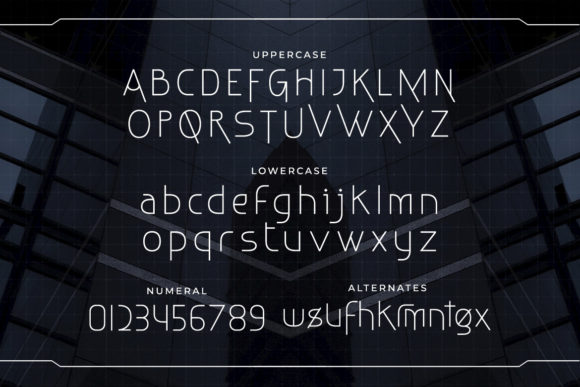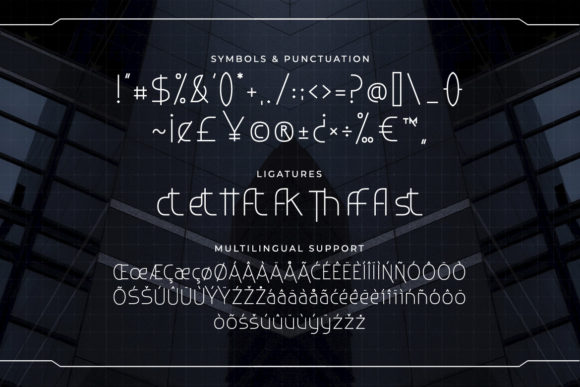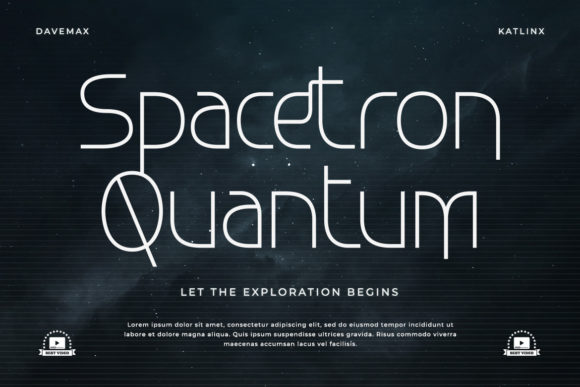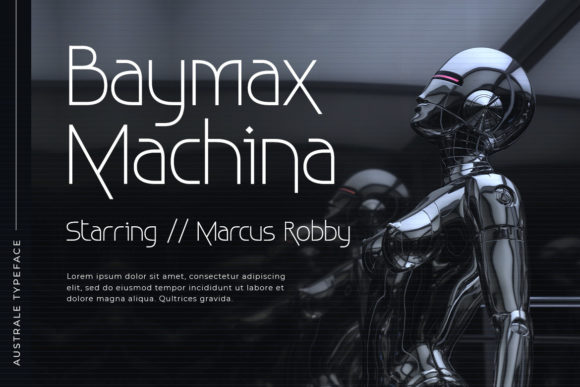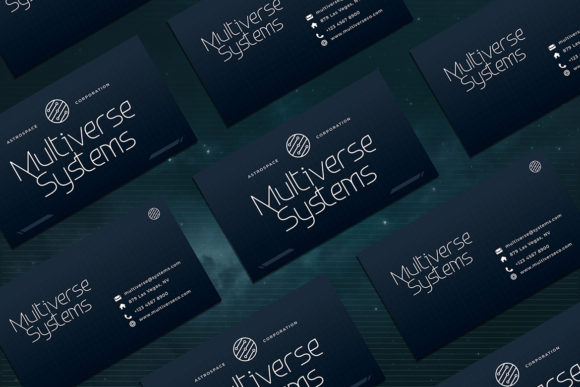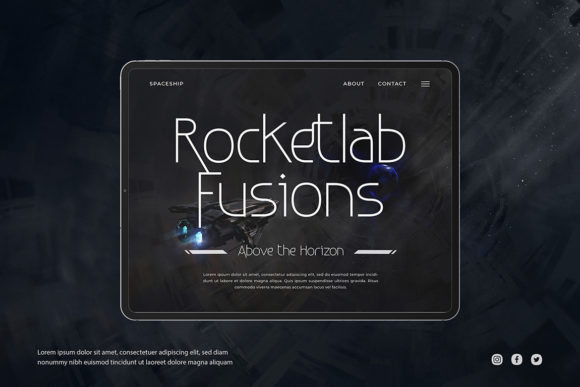
I still remember the frustration of working on a logo design project, hours spent searching for the ideal font. My client wanted something modern, sleek, and futuristic, but I was stuck in a sea of generic sans-serifs. That’s when I stumbled upon Australe, a game-changing font that has since become a staple in my design toolkit.
Australe: A Futuristic Font for Modern Designs
Australe is a futuristic font specifically designed for minimalistic logos, store brands, and modern technology themes. Its digital world feel makes it perfect for creating wordmarks, titles, book covers, font games, e-sports, taglines, and more. What sets Australe apart is its PUA encoding, allowing easy access to a wide range of glyphs and ligatures.
An Honest Review of Australe
• ✨ Unique and futuristic feel: Australe’s sleek lines and digital aesthetic make it perfect for modern designs.
• ✅ PUA encoded for easy access to glyphs and ligatures: No more tedious searching for the perfect character – Australe’s got you covered.
While Australe is an excellent font, there are a few minor limitations to consider:
• 🤔 Limited suitability for body text: Australe’s futuristic feel works best for headlines and titles, but may not be the best choice for longer blocks of text.
• ⚠️ Some glyphs may require manual adjustment: Depending on the design, some glyphs might need tweaking to ensure perfect alignment.
The Story Behind Australe
Australe was designed with the goal of creating a font that embodies the spirit of modern technology and innovation. Inspired by the sleek lines and futuristic feel of digital interfaces, Australe’s creator aimed to craft a font that would be both versatile and visually striking.
A: PUA (Private Use Area) encoding allows font creators to include additional characters and glyphs that aren’t part of the standard Unicode range. This means Australe users can access a wide range of unique characters and ligatures with ease.
Q: Is Australe suitable for body text, or is it better suited for headings?
A: While Australe can be used for body text, its futuristic feel works best for headings and titles. For longer blocks of text, consider pairing Australe with a complementary font.